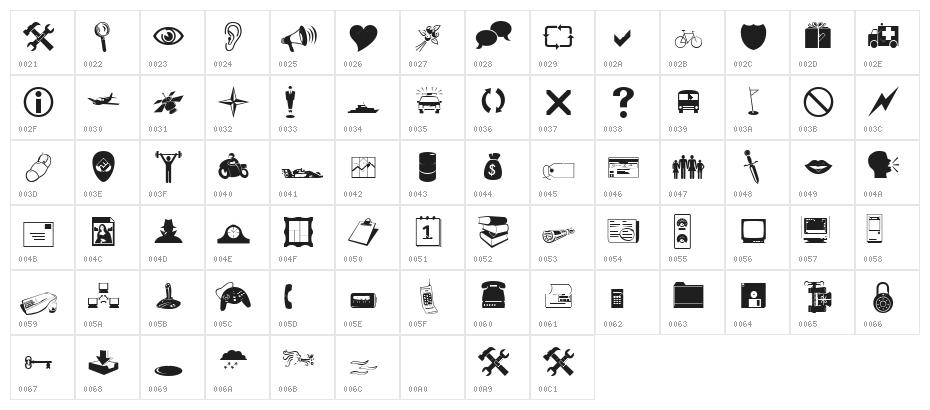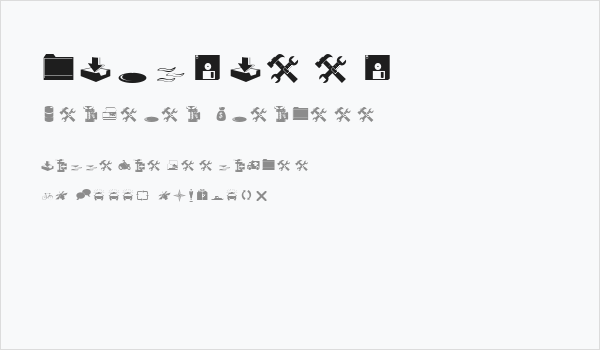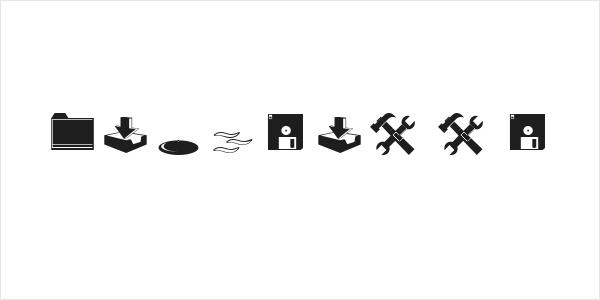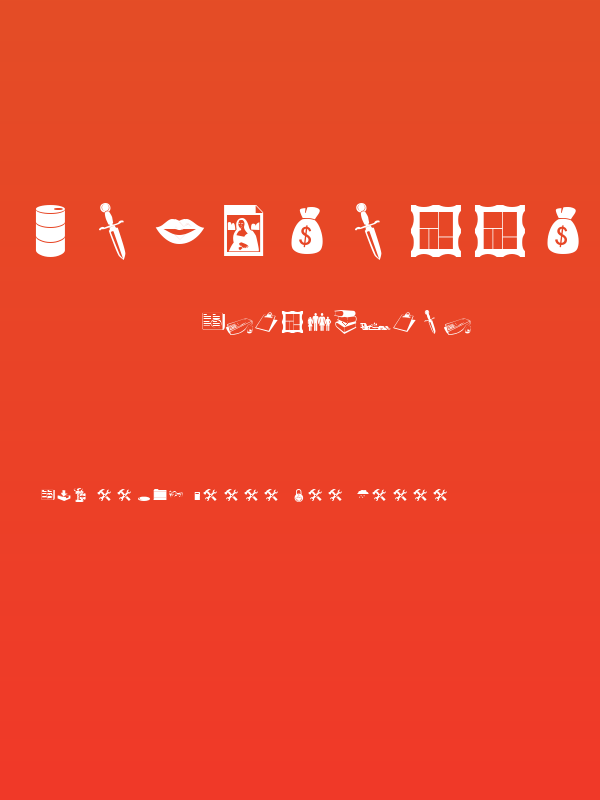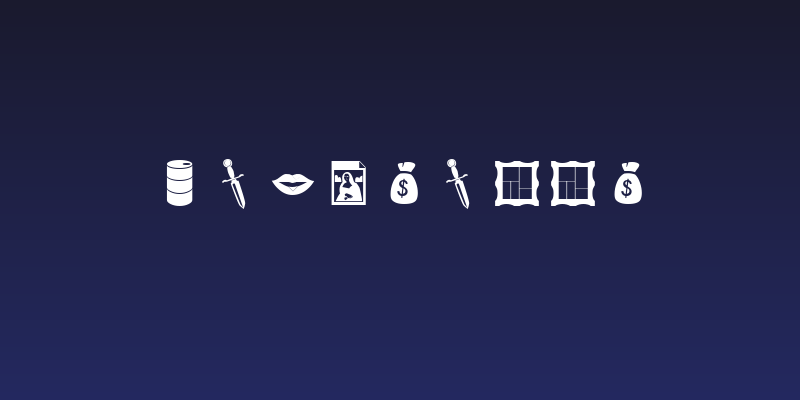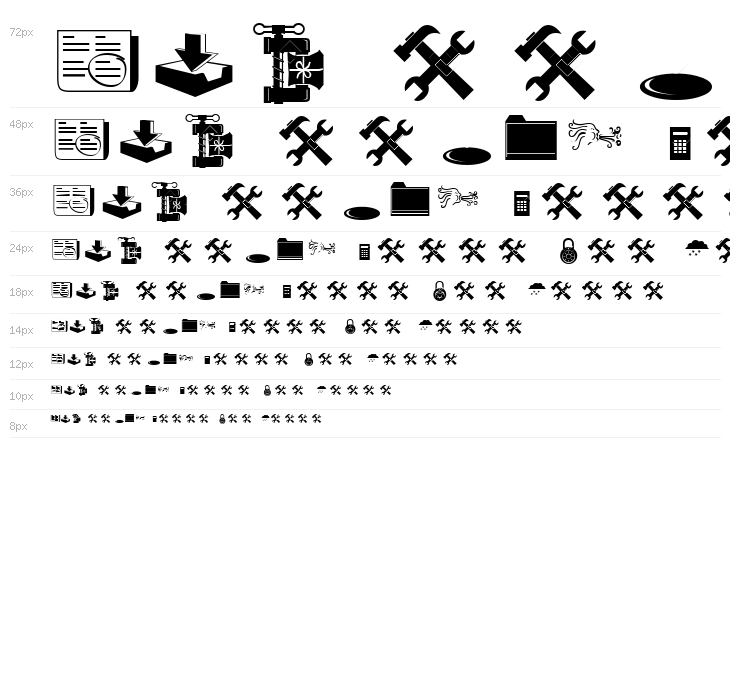
childhood Font
childhood Description
A pictogram-style icon set where each character is represented by a unique, detailed black-and-white symbol, rather than traditional letterforms. The icons are bold, high-contrast, and visually distinct, covering a wide range of themes such as business, communication, transportation, and objects.
| Overall Style | Decorative, Modern, Pictogram |
| Use Case | Icons, Infographics, Signage, UI elements |
| Proposed Projects | Infographics, signage, educational materials, user interfaces, wayfinding systems, presentations. |